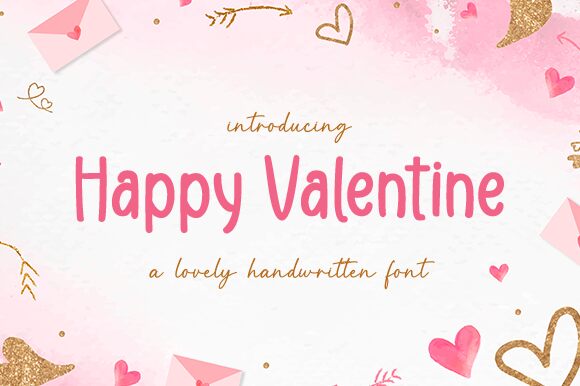
Happy Valentine
Happy Valentine is a lovely handwritten semi-light font by Graphix Line Studio. Its romantic and playful style will add a touch of charm to any project, making it perfect for wedding invitations, love letters, greeting cards, and social media graphics. The semi-condensed width allows for easy legibility while still maintaining its unique personality. Use Happy Valentine to create a warm and inviting atmosphere in your designs that will leave a lasting impression on your audience. Let this font be the cupid's arrow that hits the mark every time!